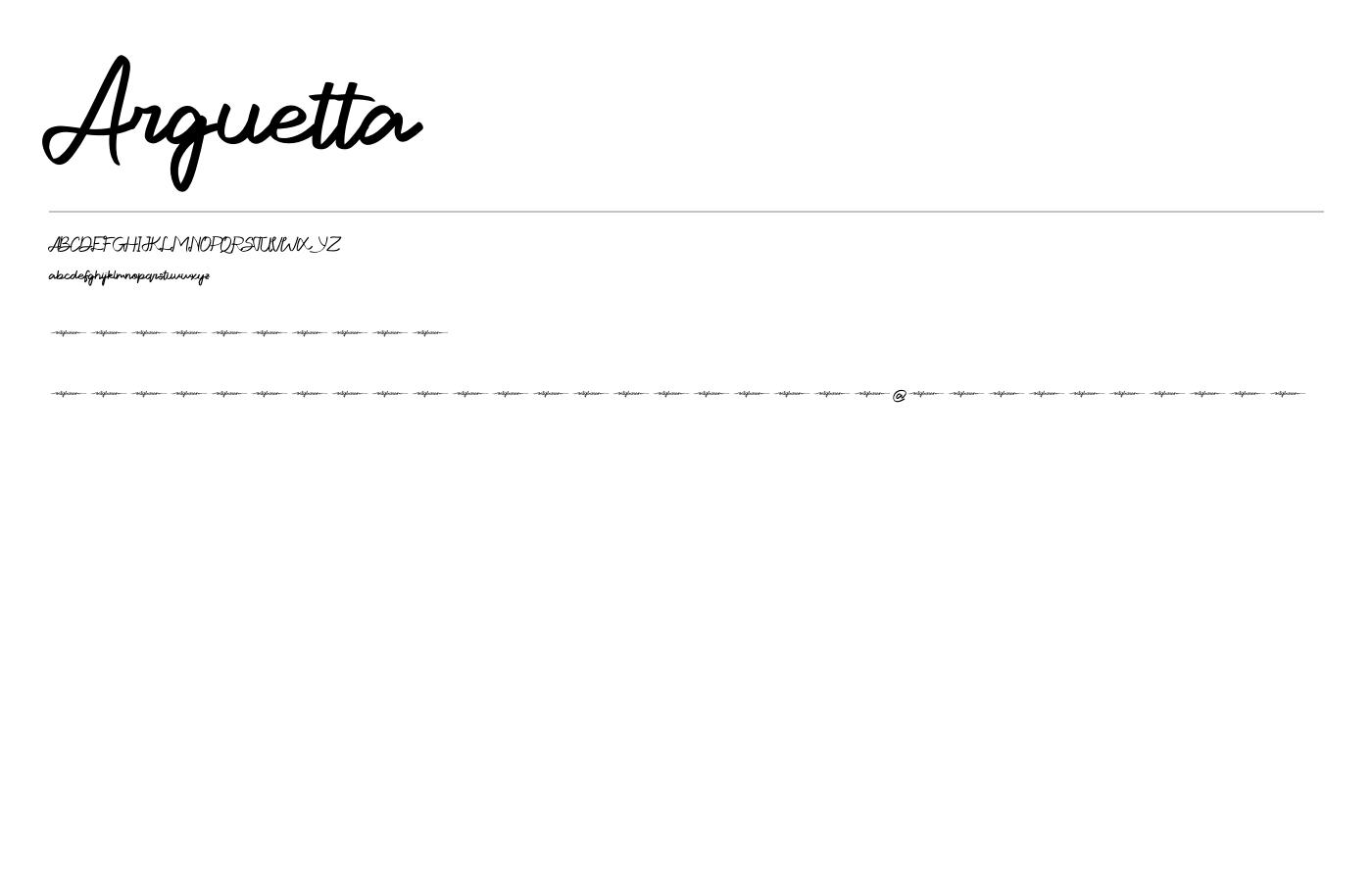
Arguetta is a graceful handwritten script font with smooth, fluid strokes that evoke a natural, personal touch. Its moderate weight and consistent stroke width make it legible while retaining an elegant, casual charm, perfect for creative branding, invitations, or stylish editorial use where warmth and individuality are desired. This font shines in projects seeking a handwritten, approachable feel without sacrificing sophistication.
Arguetta Font
About Arguetta Font